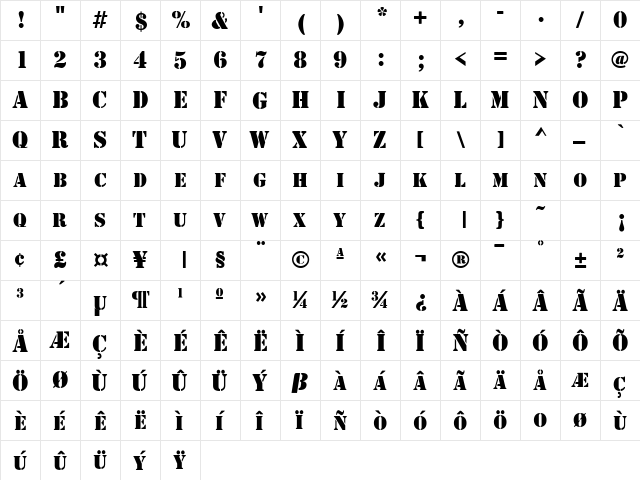
Stensil Normal
Design Context for Stensil Typeface
Stensil is a composed and adaptable typeface that performs quietly and consistently across a wide range of design contexts.